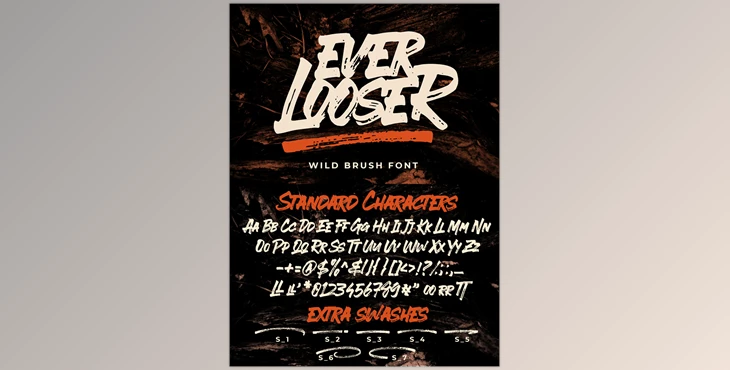
This is a rough brush typeface with an accessible style and a good flow. This font is perfect for your next project. You are presenting Ever Looser Brush Font. It is a Wild Brush Font that has a distinctive texture. This font is created with the perfect combination of every character. It is possible to type with Mix & Match to get an original combination. It's unique and can be utilized to fulfill all your project requirements. Each glyph is unique and has distinctive characteristics, and, when interacting with other glyphs, will give a lively and pleasant contact. This font can be used at any time and on any project. As you can see in the image above of the presentation, EVER LOOSER looks 'wild in design projects.
That's why Ever LOOSER FONT will be delighted to provide its unique touch to your design-related projects like environmental campaigns, quotes posters, book cover designs, promotional material T-shirts, hoodie packaging, products, etc. to add text on any background image